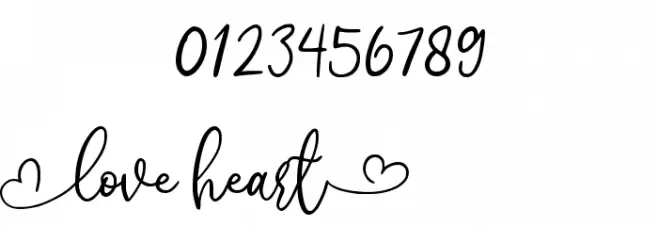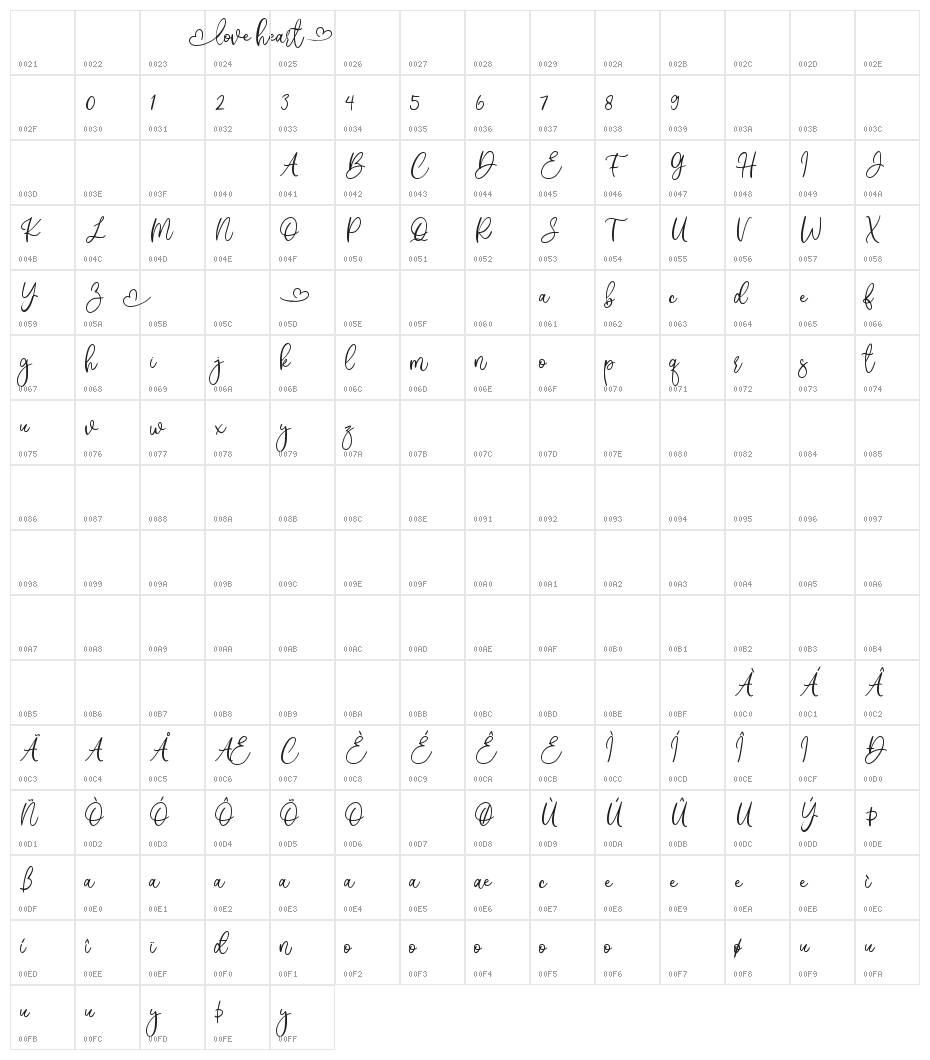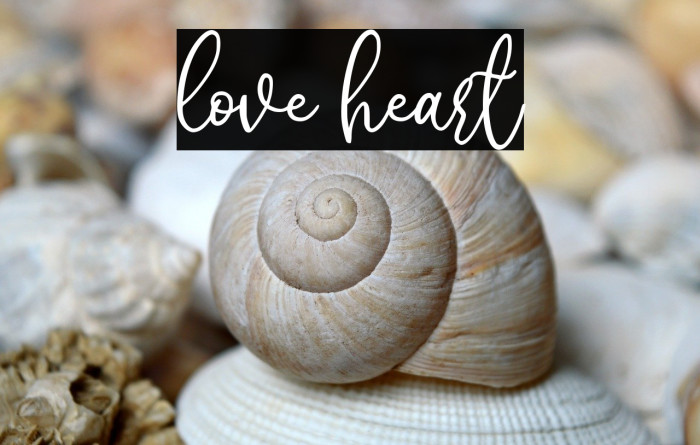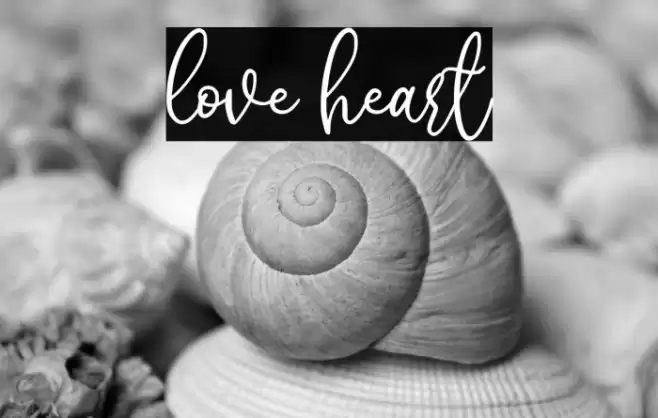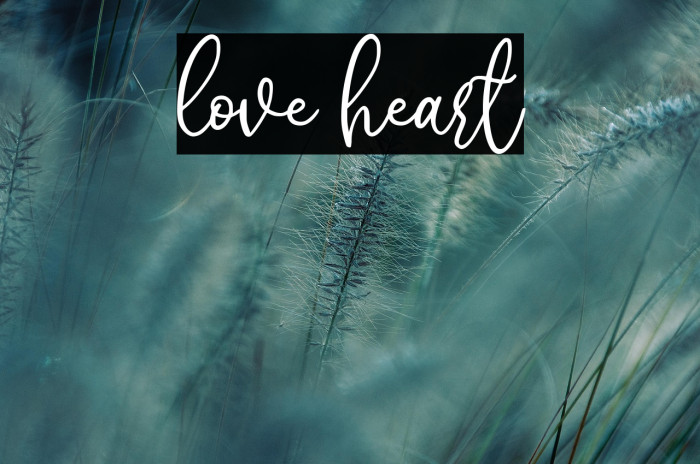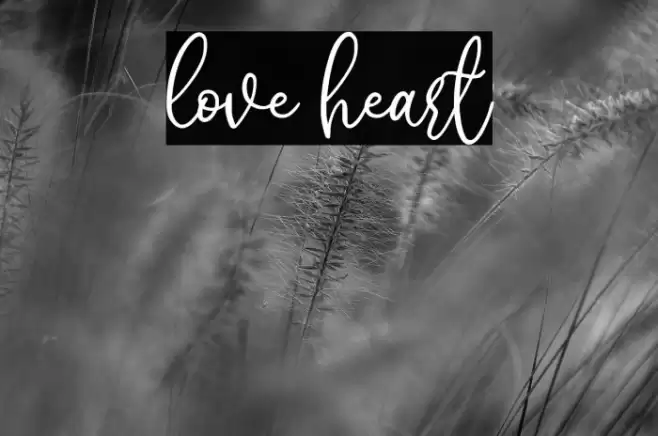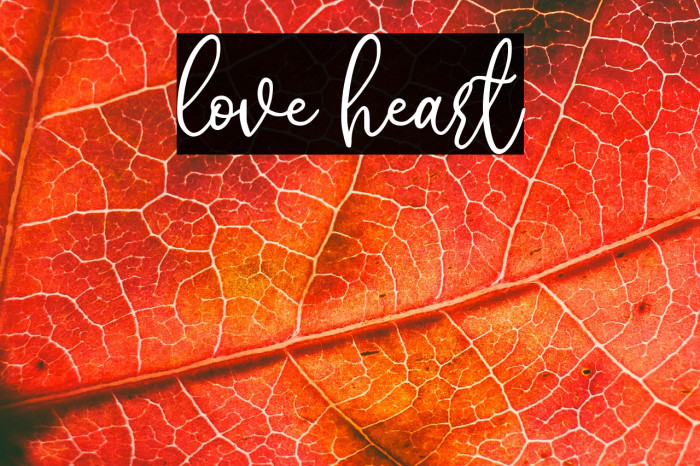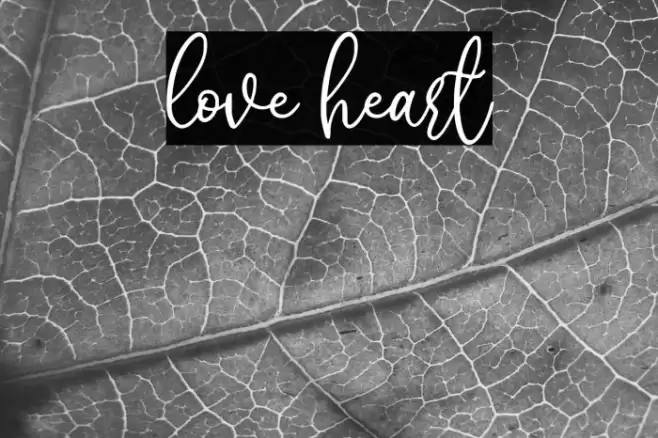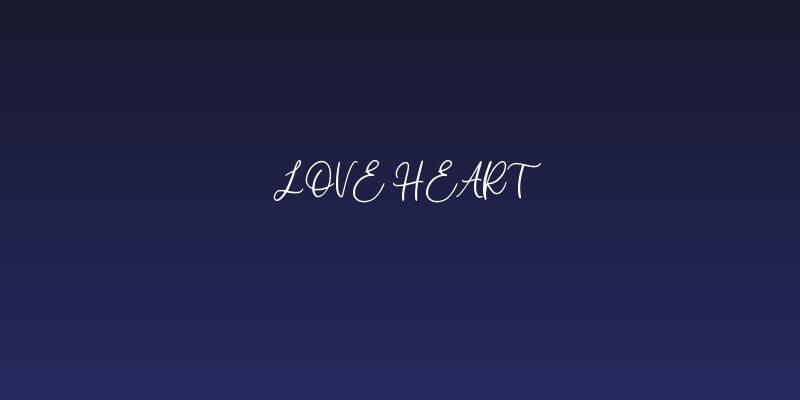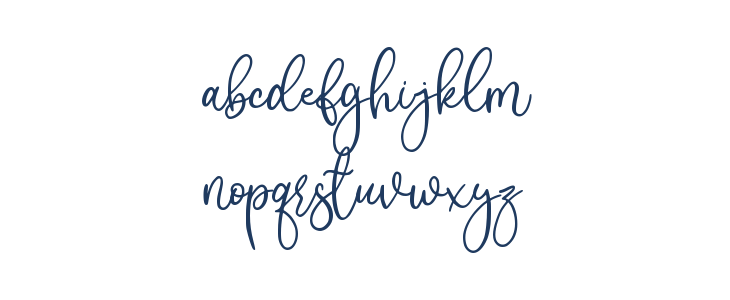
love heart Font
love heart Description
This font exudes a playful and romantic charm with its flowing, cursive style. Each letter is elegantly crafted with smooth curves and a consistent stroke width, giving it a handwritten feel. The uppercase letters are bold and expressive, while the lowercase letters maintain a delicate and whimsical appearance. The numbers are clear and legible, matching the overall aesthetic. Special characters are adorned with subtle flourishes, adding to the font's decorative appeal. This font is perfect for projects that require a personal touch, such as invitations, greeting cards, or branding materials that aim to convey warmth and affection.